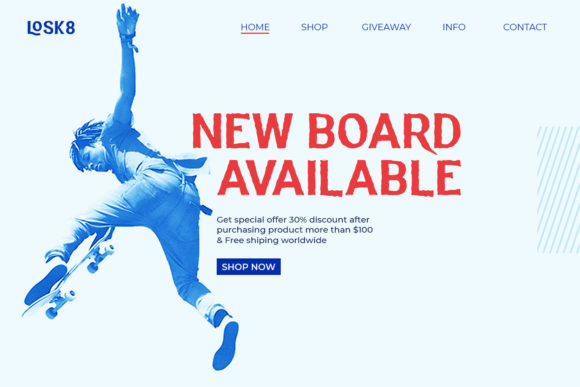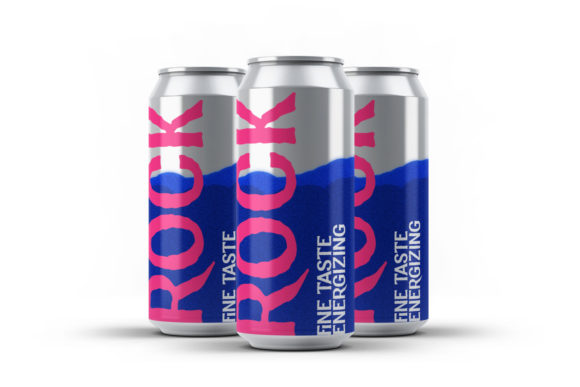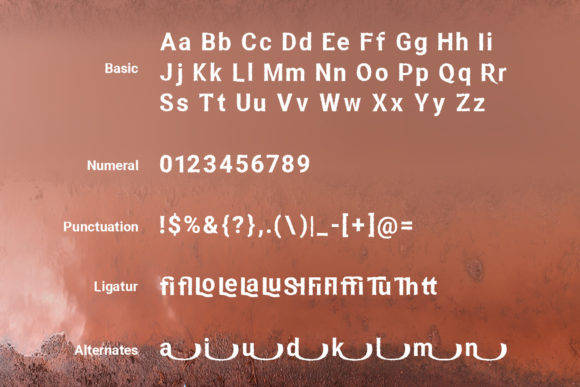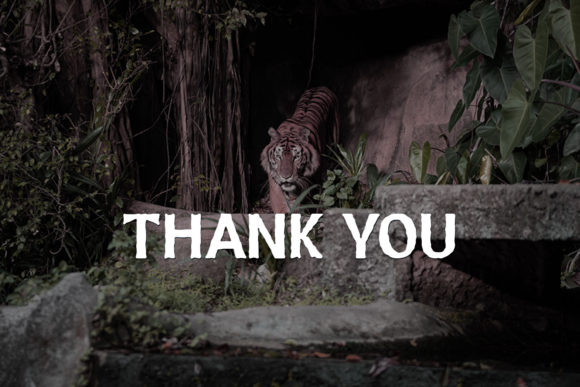
Unlock the Power of Your Creativity with Bertosh Font
Have you ever stared at a blank canvas, trying to conjure up the perfect idea to bring your project to life? It’s that moment when the creative juices start flowing, and the possibilities seem endless. But sometimes, all it takes is the right tool to set your imagination ablaze. For designers, that tool is the Bertosh Font – a bold, rough-textured display font that can elevate any creation to new heights.
This versatile font is more than just a design element; it’s a game-changer. Whether you’re working on a graphic novel, a logo, or a marketing campaign, the Bertosh Font has the potential to add a unique touch that sets your work apart from the rest. Its rough texture and bold design make it an incredible asset to any font library, and its value lies in its ability to add depth and character to even the most mundane projects.
Bertosh Font Key Features
• Unique Characteristics: The font features a unique, hand-drawn style with subtle irregularities, giving it a distinctive and human touch that sets it apart from other fonts.
Bertosh Font Review
I recently had the chance to work with the Bertosh Font, and I have to say it’s a unique and intriguing choice. Here are my thoughts.
• The Bertosh Font has a distinctive style that’s perfect for adding a touch of personality to your designs. Its quirky feel makes it stand out from more generic fonts.
• The font is well-suited for headings and titles, where its bold lines and unusual shapes can add visual interest.
• The Bertosh Font is highly customizable, allowing you to adjust the spacing and weight to fit your specific design needs.
• The Bertosh Font may not be the best choice for body text, as its unusual shape and lack of legibility can make it difficult to read in larger blocks of text.
• The font’s bold lines can sometimes make it feel overwhelming or overwhelming, so use it sparingly.
The Bertosh Font is a bold and eye-catching choice that’s perfect for adding a touch of whimsy to your designs. While it may not be suitable for every project, it’s a great option for those looking to add some personality to their work.
For the most effective use of Bertosh Font, use it for titles, headings, and short paragraphs. It’s ideal for creating a modern and playful feel in designs. Be mindful of font size, as it can be quite bold and eye-catching.